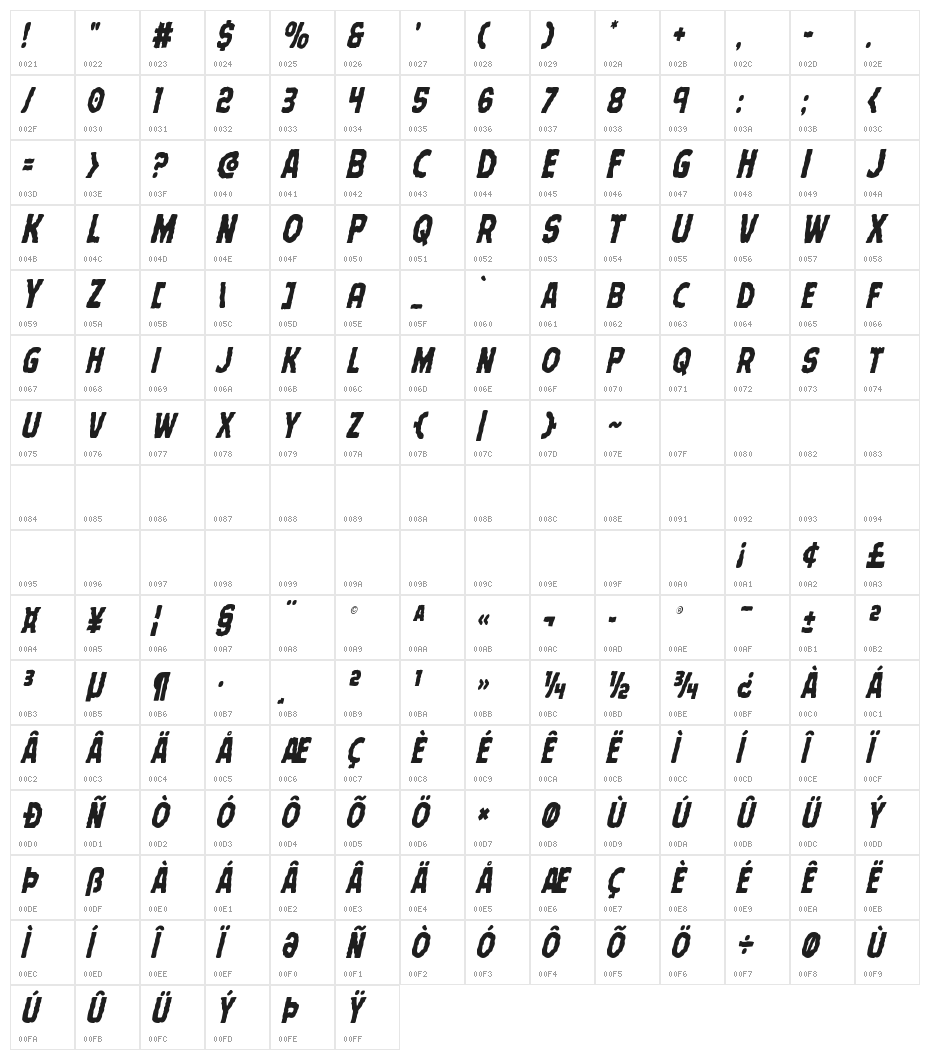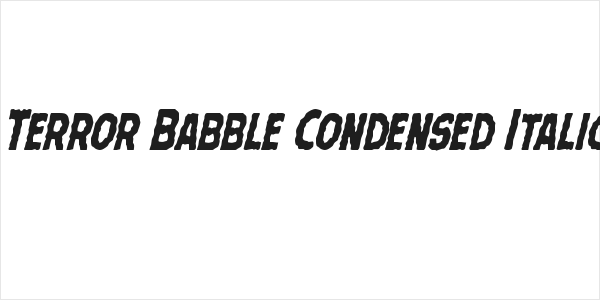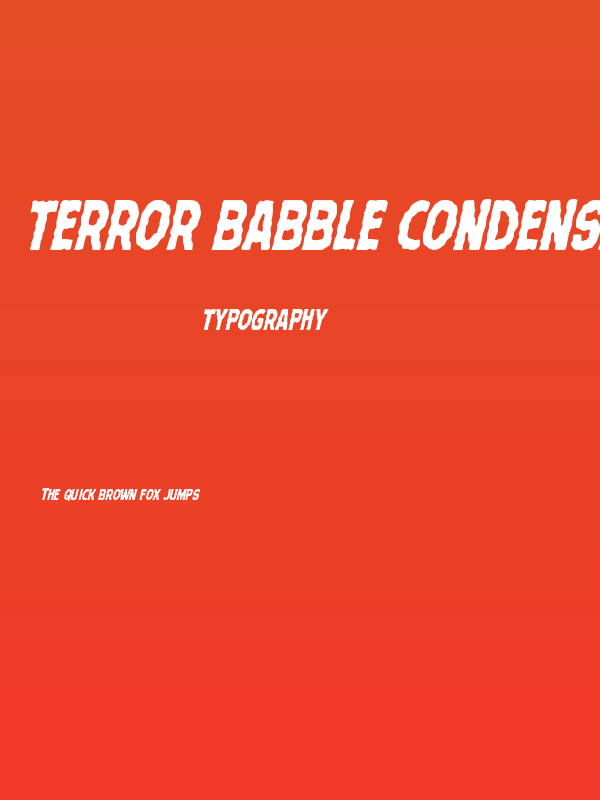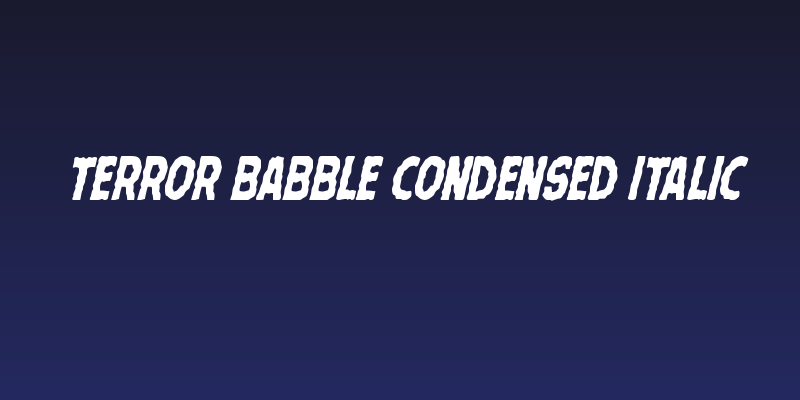
Terror Babble Condensed Italic Font
Terror Babble Condensed Italic Description
This font features a bold, condensed style with an italic slant, giving it a dynamic and energetic appearance. The characters are heavily stylized with a rough, textured edge that adds a sense of urgency and intensity. The uppercase and lowercase letters maintain a consistent height, contributing to a uniform look across text. Numbers and special characters are designed with the same bold and textured style, ensuring cohesion throughout. The font's unique appearance makes it suitable for eye-catching designs that require a strong visual impact.
| Proposed Projects | Ideal for horror-themed posters, edgy branding, and attention-grabbing headlines. |